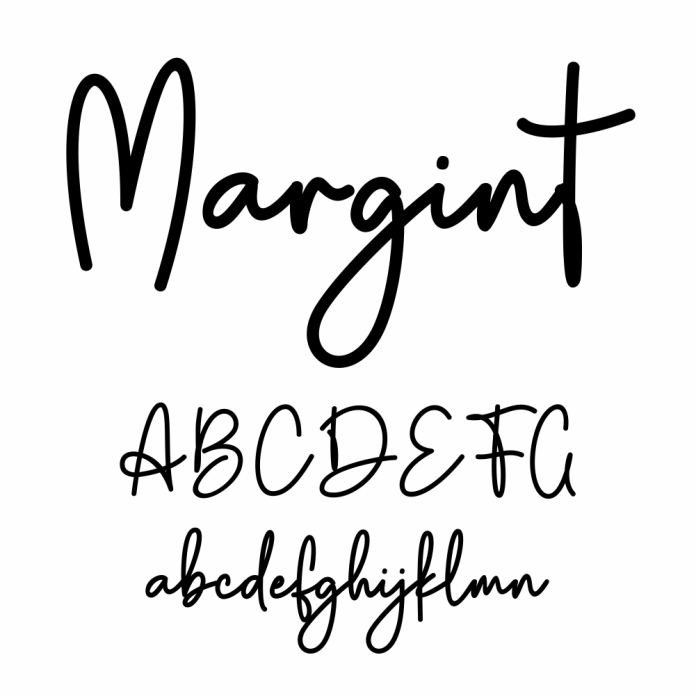
Margint Signature Font is a stylish and elegant script font. Its key features include smooth, flowing lines and intricate details. This font is perfect for adding a touch of sophistication to invitations, logos, and branding materials.